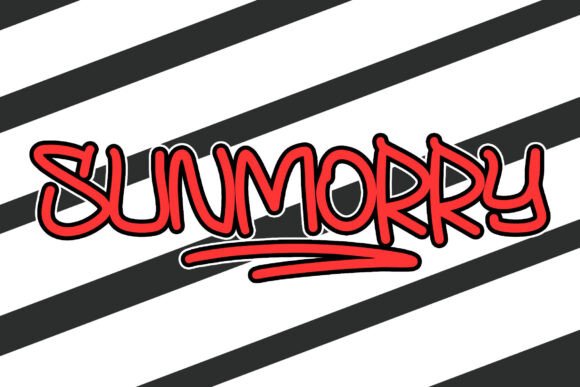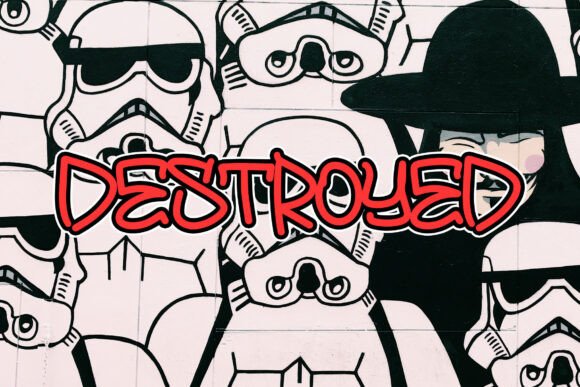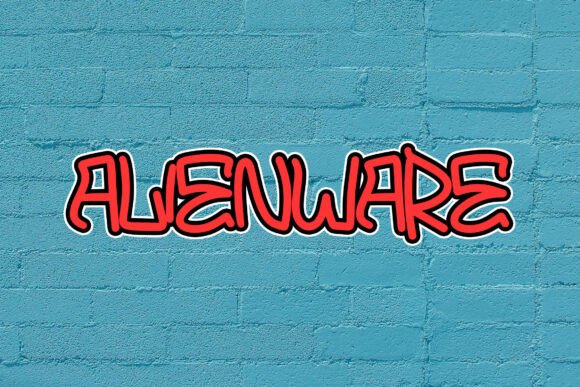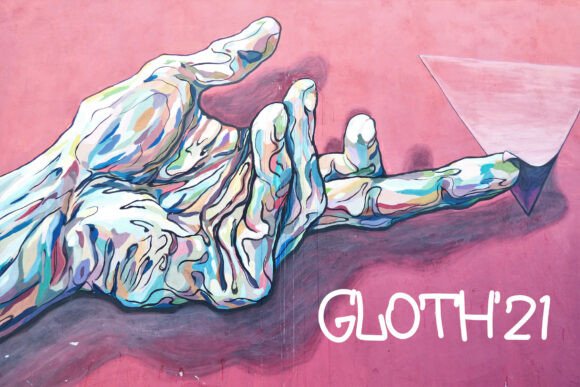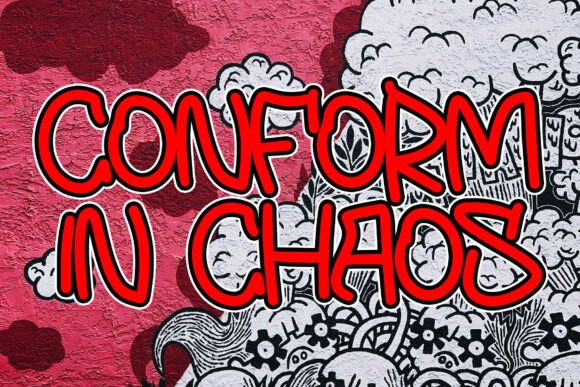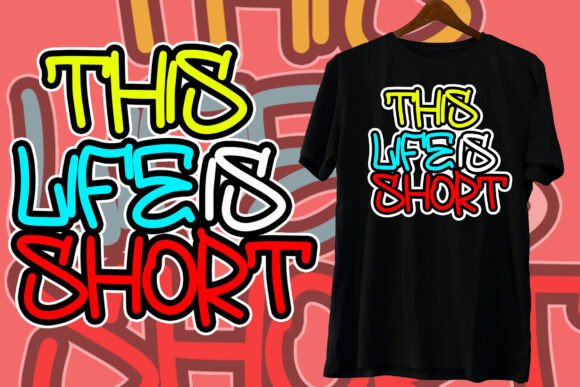
Introduction to Semoz Font
SEMOZ: Bold Monoline Graffiti Font Unleash your creativity with SEMOZ, a bold graffiti font crafted with a sleek monoline brush style.
Featuring unique and expressive character shapes, SEMOZ adds a dynamic edge to your designs, making it ideal for branding, posters, streetwear, and urban-inspired projects Elevate your creative work with this distinctive font.
Semoz Font offers exceptional quality and versatility, making it a valuable addition to your design toolkit. Whether you’re creating for personal projects or commercial use, Semoz Font delivers professional results.